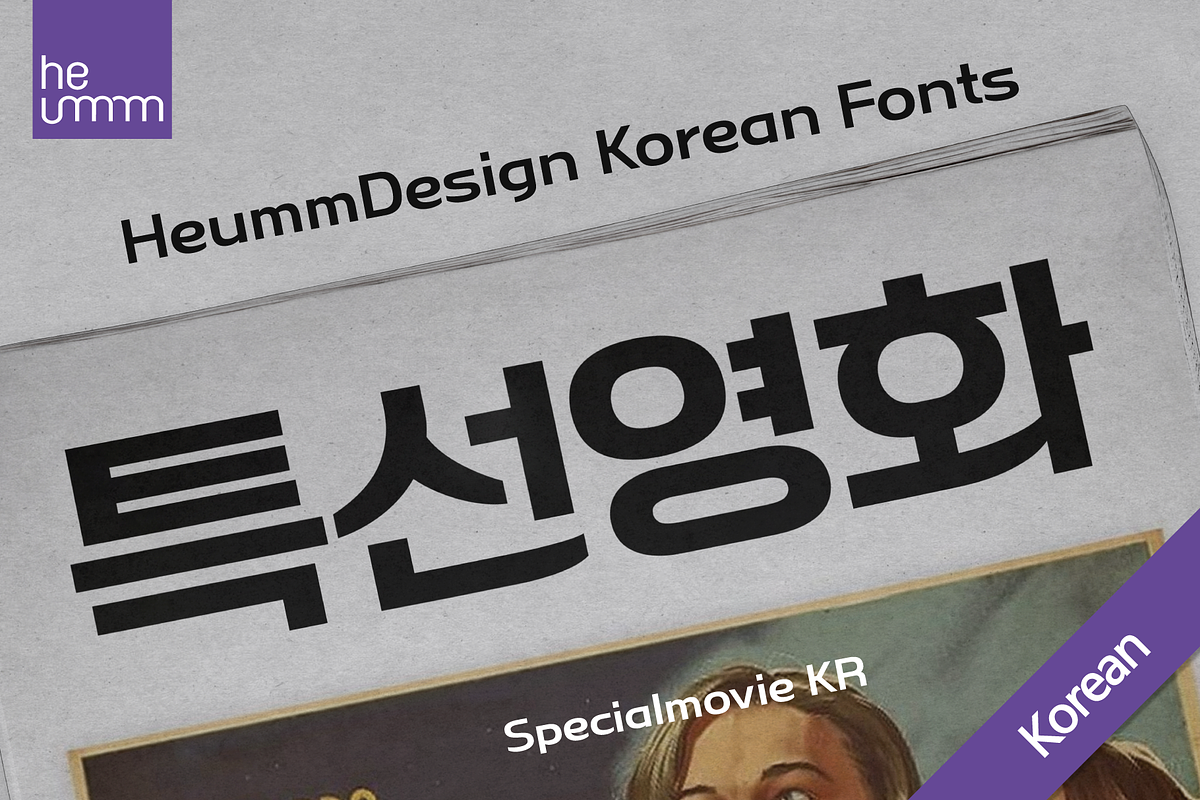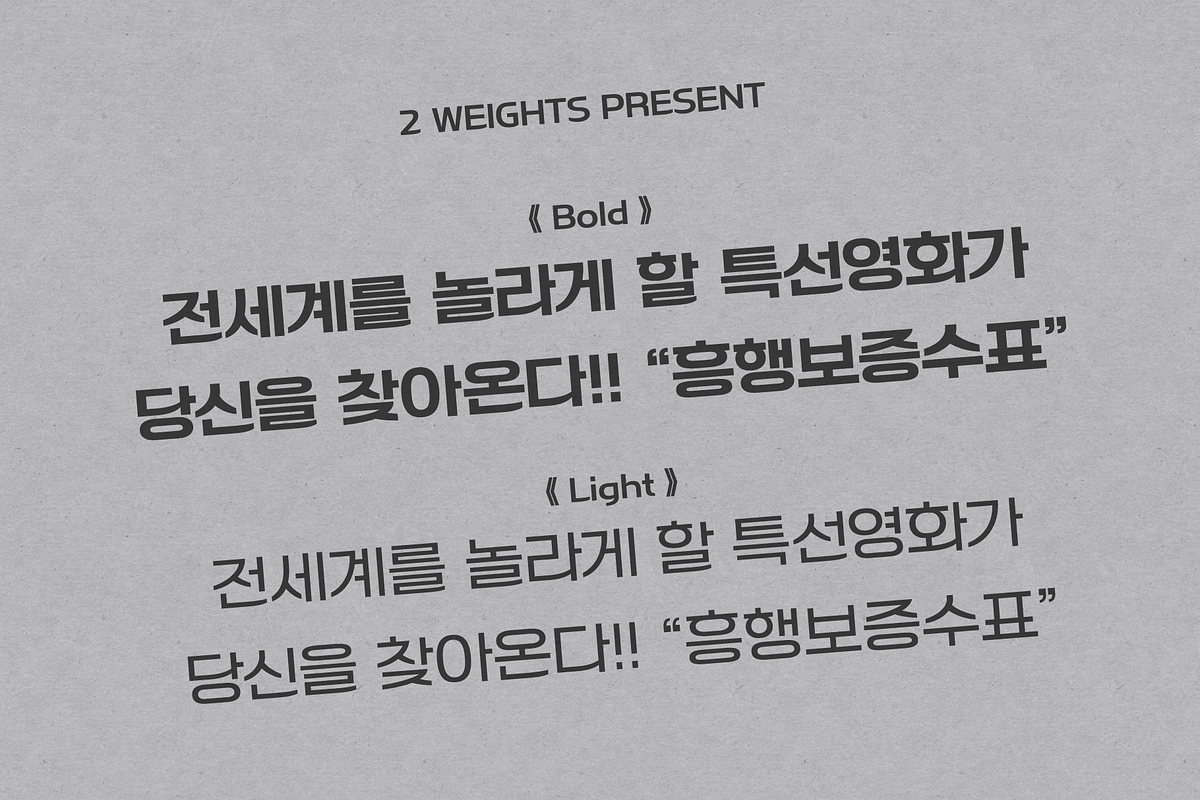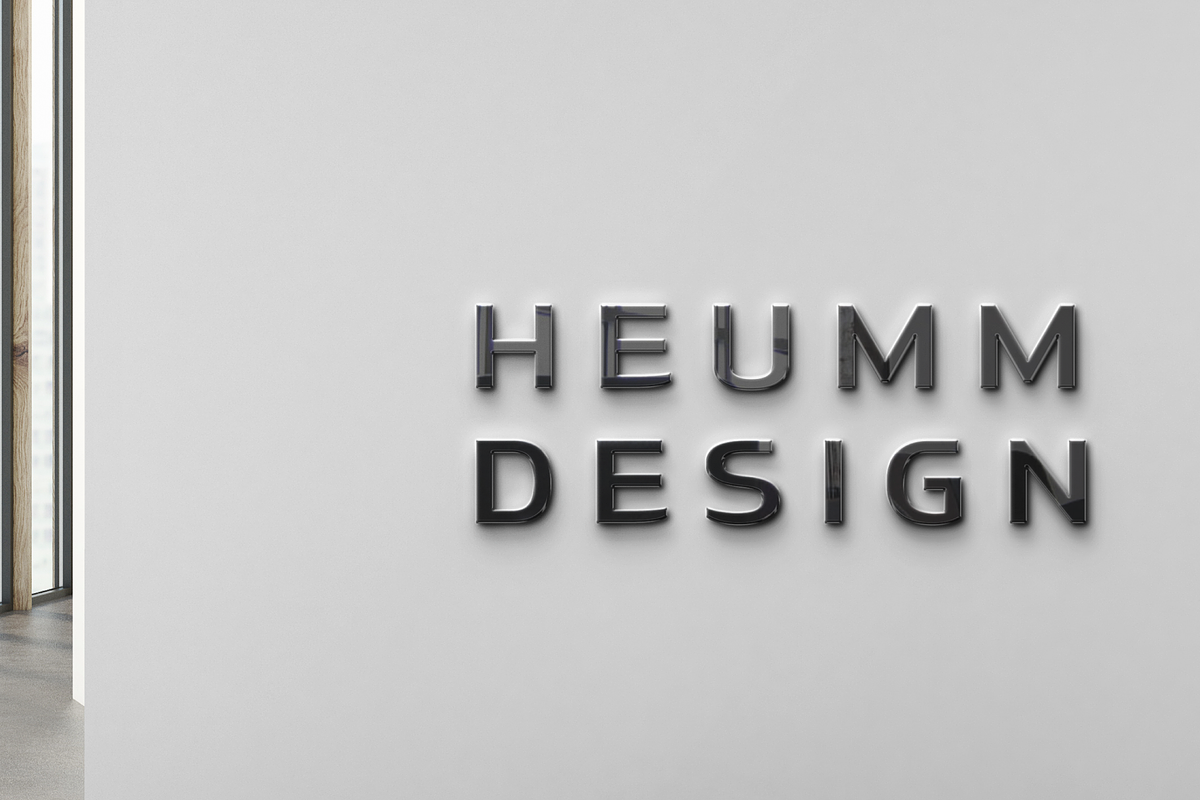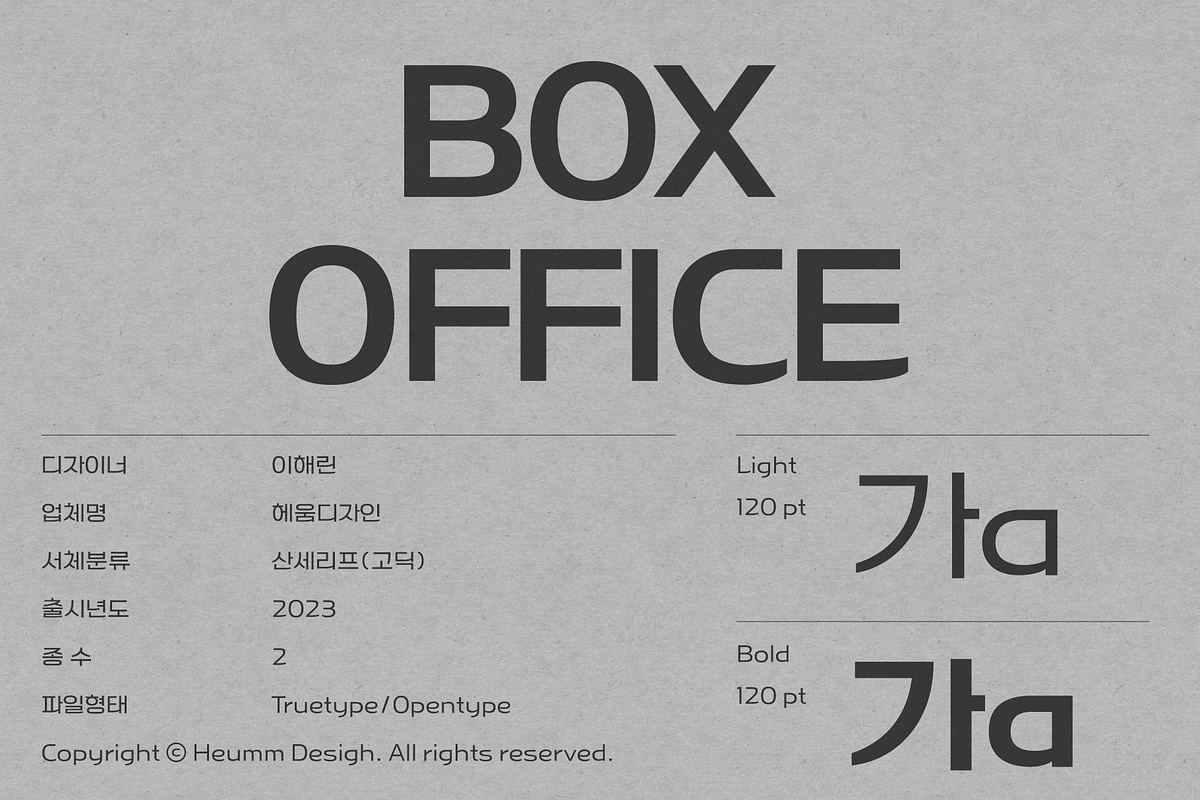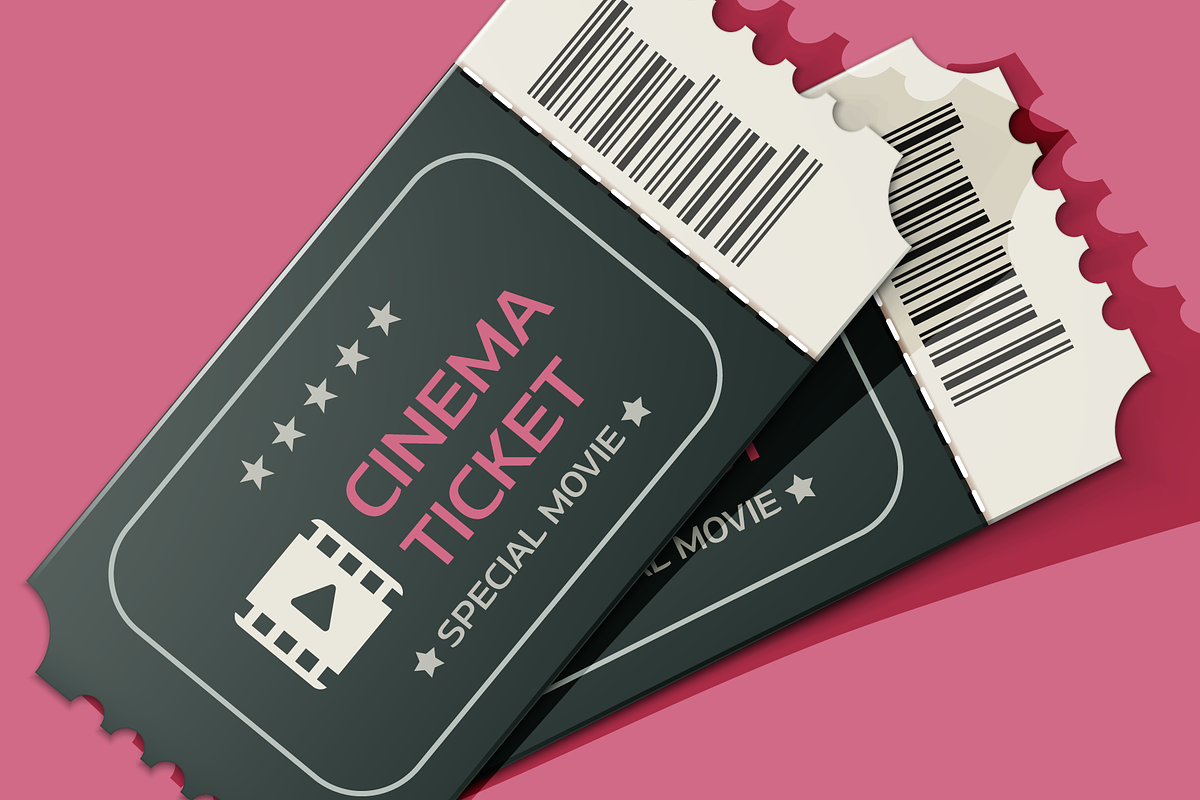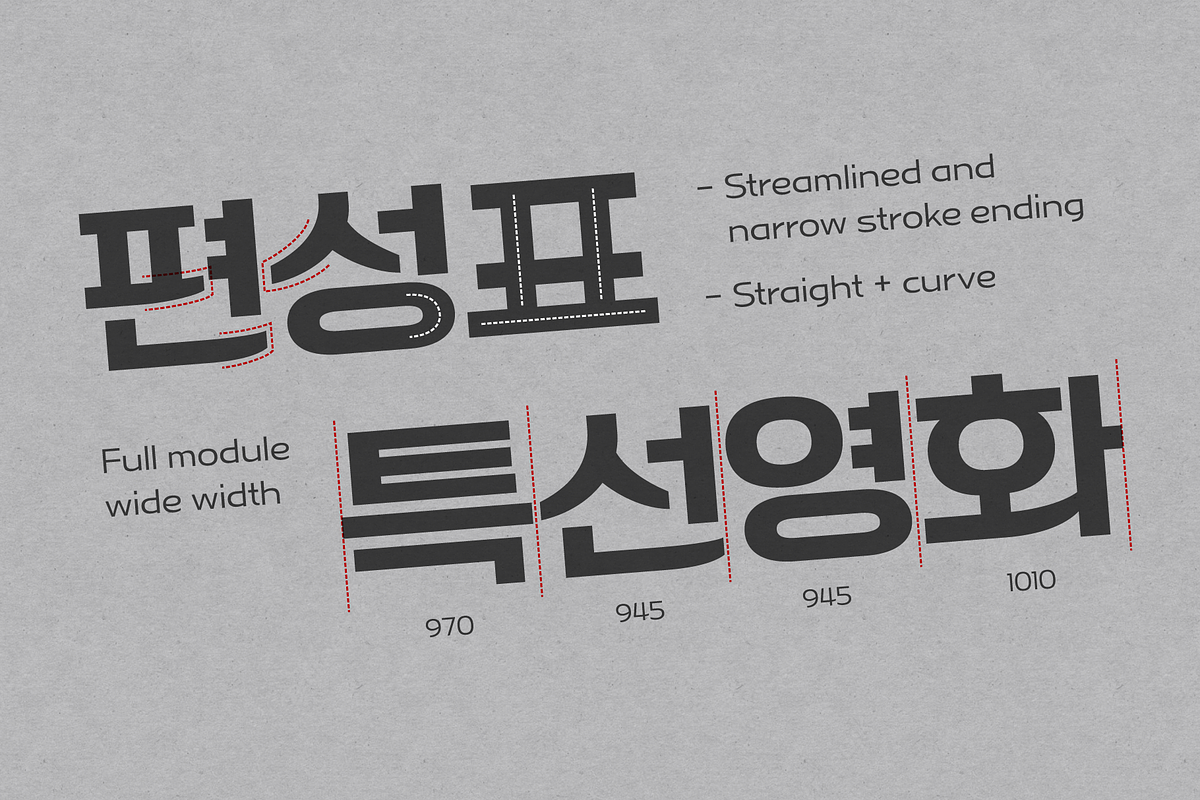
HU Specialmovie KR is a retro, wide square typeface, characterized by streamlined, narrow stroke ends such as 'ㄴ,ㅅ,ㅈ'.
The first consonants are designed to be large with full modules to improve readability. The grapheme 'ㅇ', which is the face of the font, is in the form of a square in harmony with straight lines and curves, expressing a solid and simple feeling overall.
HU SpecialmovieKR includes Korean.
There is 2 weight of HU Specialmovie KR : Light, Bold